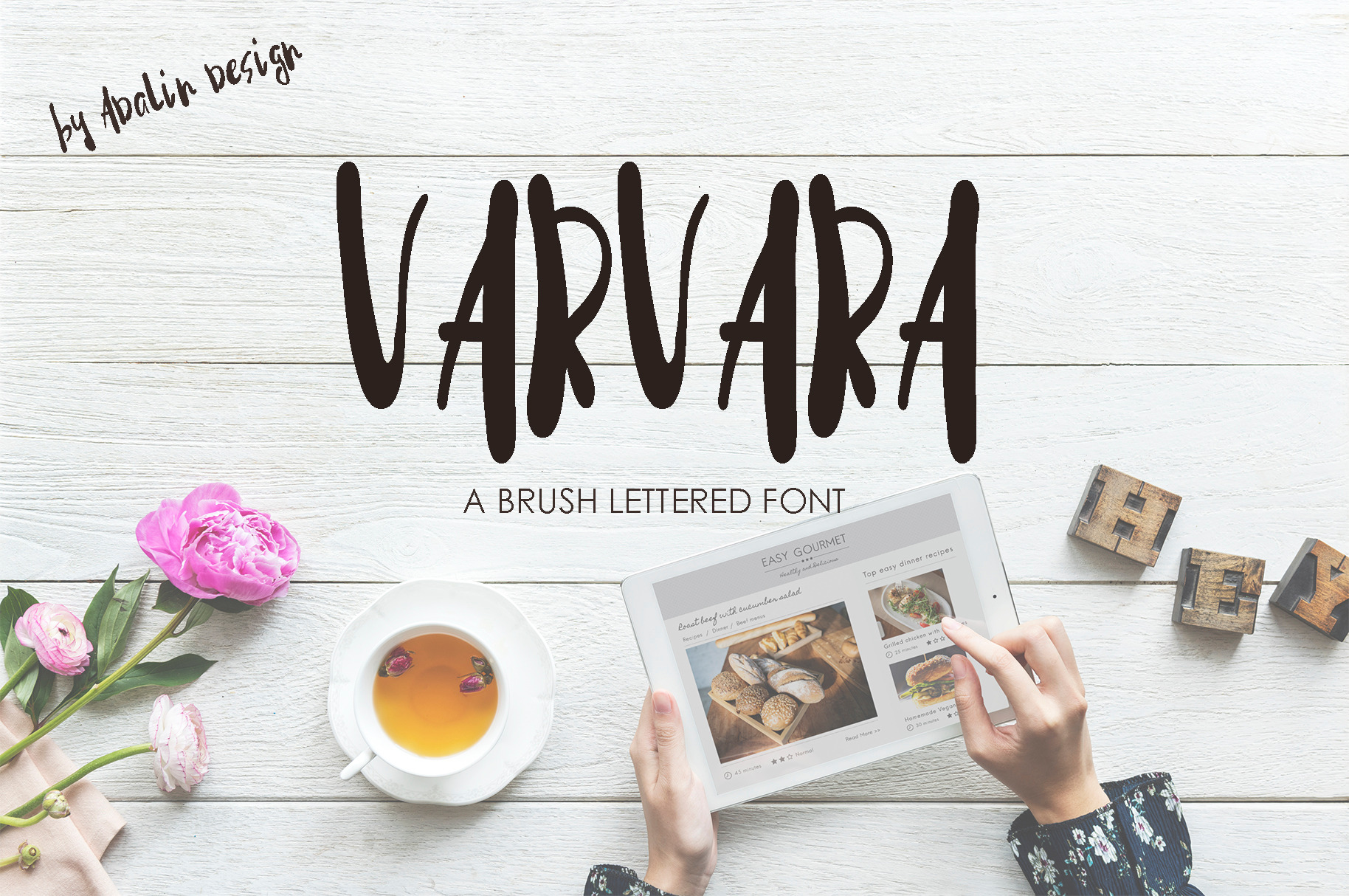
Varvara — A Handwritten Font
Varvara Handwritten Font is a delightfully, playful and modern handwriting font. The handmade style makes it ideal for use in all your project projects: be it logos, signatures, labels, package design, blog headings. Using Varvara will definitely make your text effects.
Varvara comes with basic and lowercase characters, numbers, signs and punctuation.Ligatures are also included to bring true authenticity to your design. It has multilingual support with accented characters for international users.
Which international languages does Varvara support? Varvara has accented and special characters that support the following languages : Basque, Bosnian, Catalan Cornish, Croatian, Czech, Danish, Dutch, Embu, English, Esperanto, Estonian, Faroese, Filipino, Finnish, French, Galician, German, Hungarian, Icelandic, Indonesian, Irish, Italian, Malay, Maltese, Manx, Maori, Meru, Morisyen, North Ndebele, Norwegian Bokmål, Norwegian Nynorsk, Nyankole, Oromo, Polish, Portuguese, Romansh, Serbian (Latin), Slovak, Slovenian, Spanish,Swedish, Swiss German.